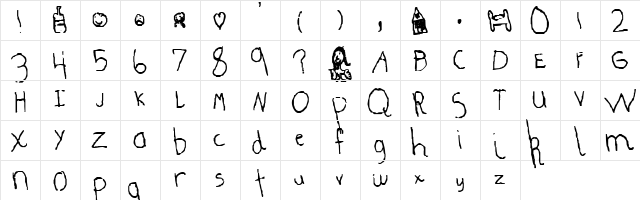
Samantha hand
| Foundry | Font Garden |
| Designer | Ellinor Rapp |
Design Context for Samantha Typeface
Samantha flows with the natural rhythm of handwritten lettering, making it ideal for designs that call for warmth and personal expression.